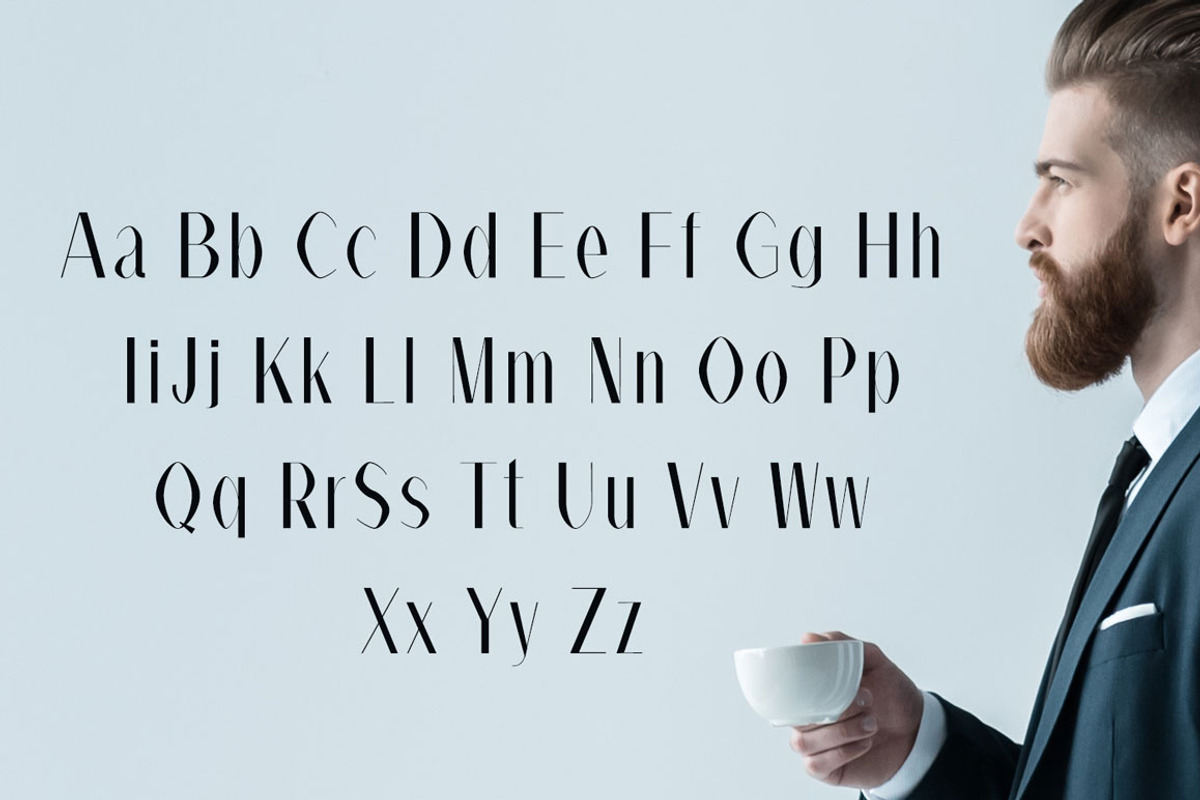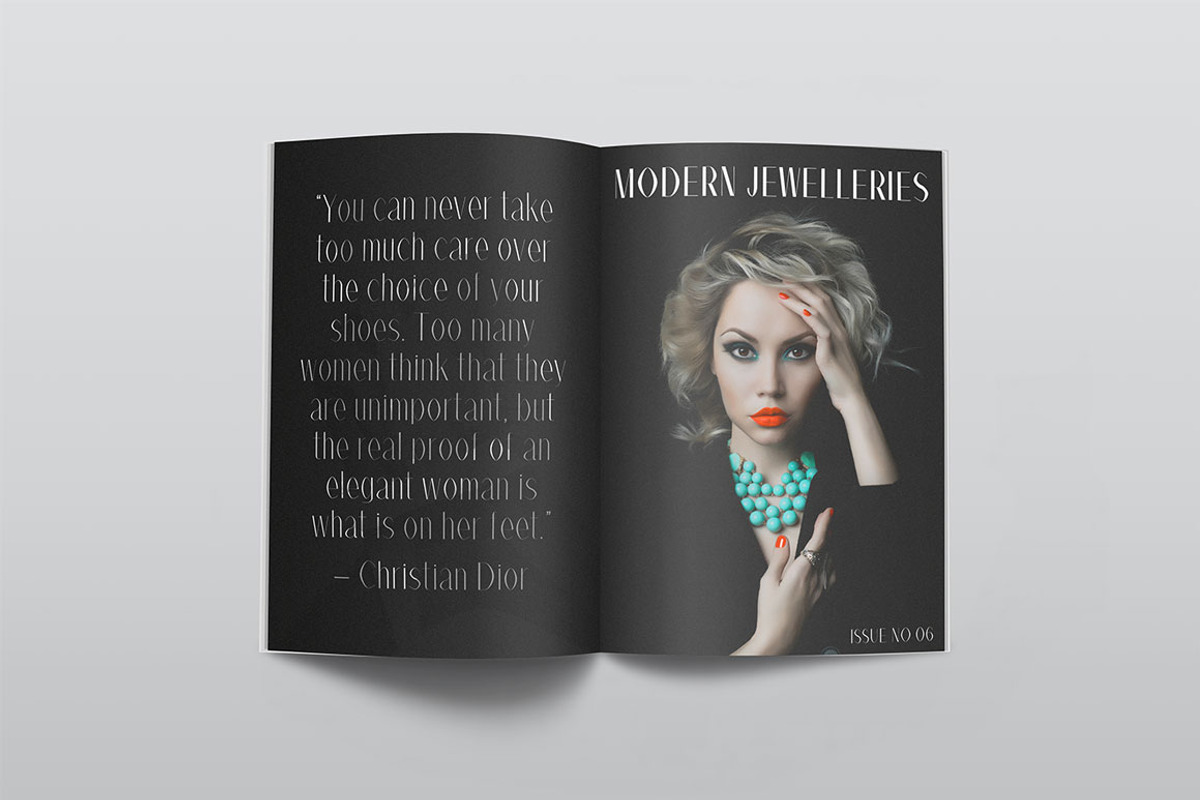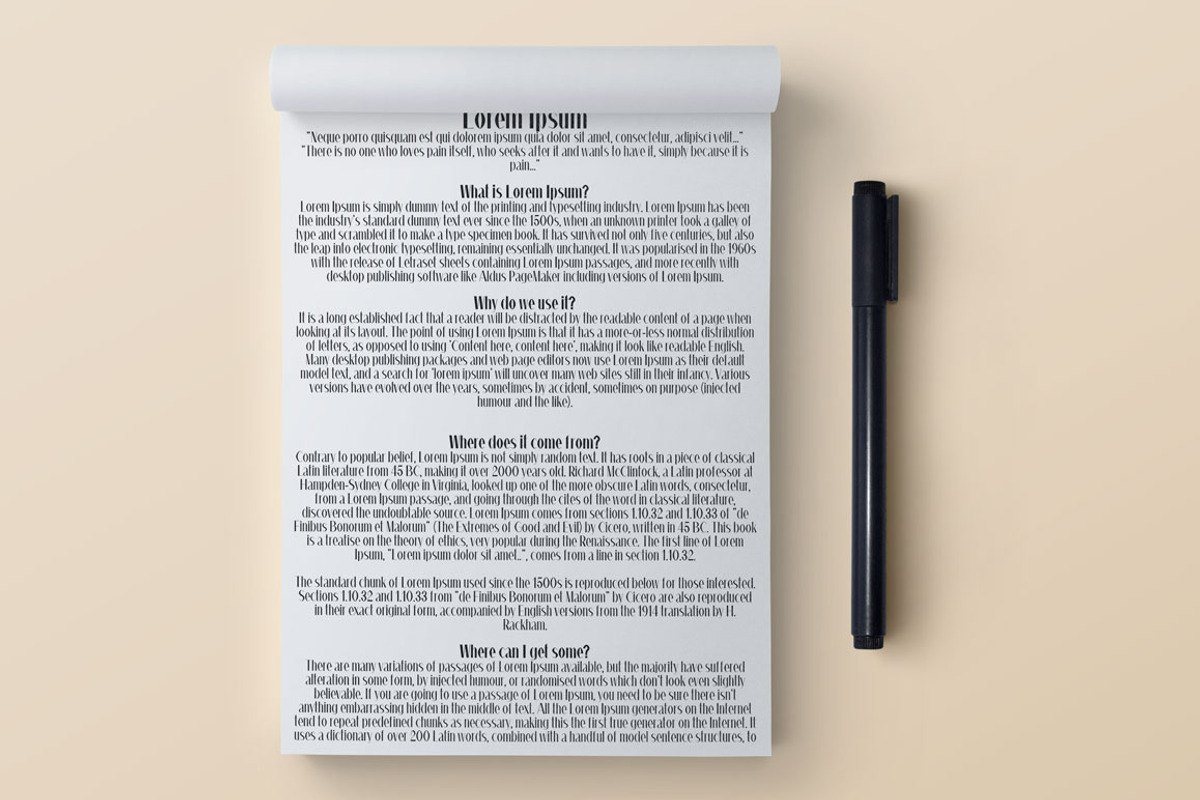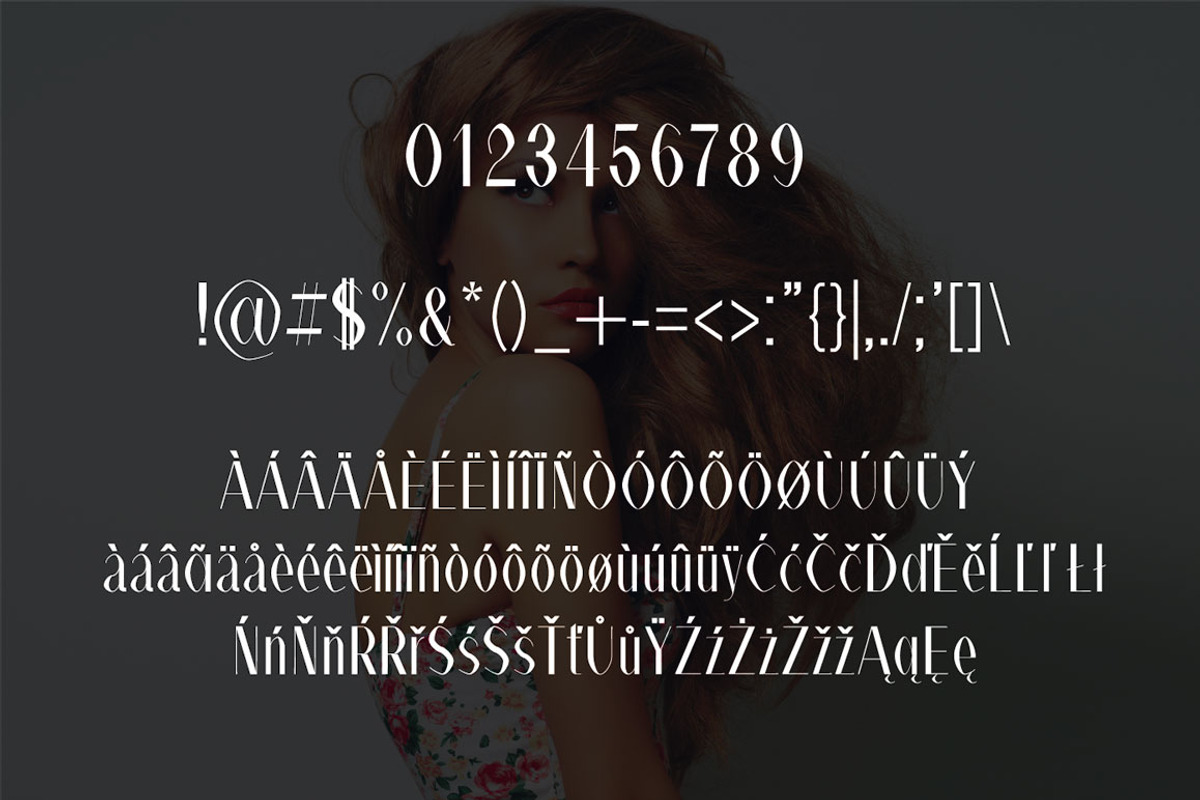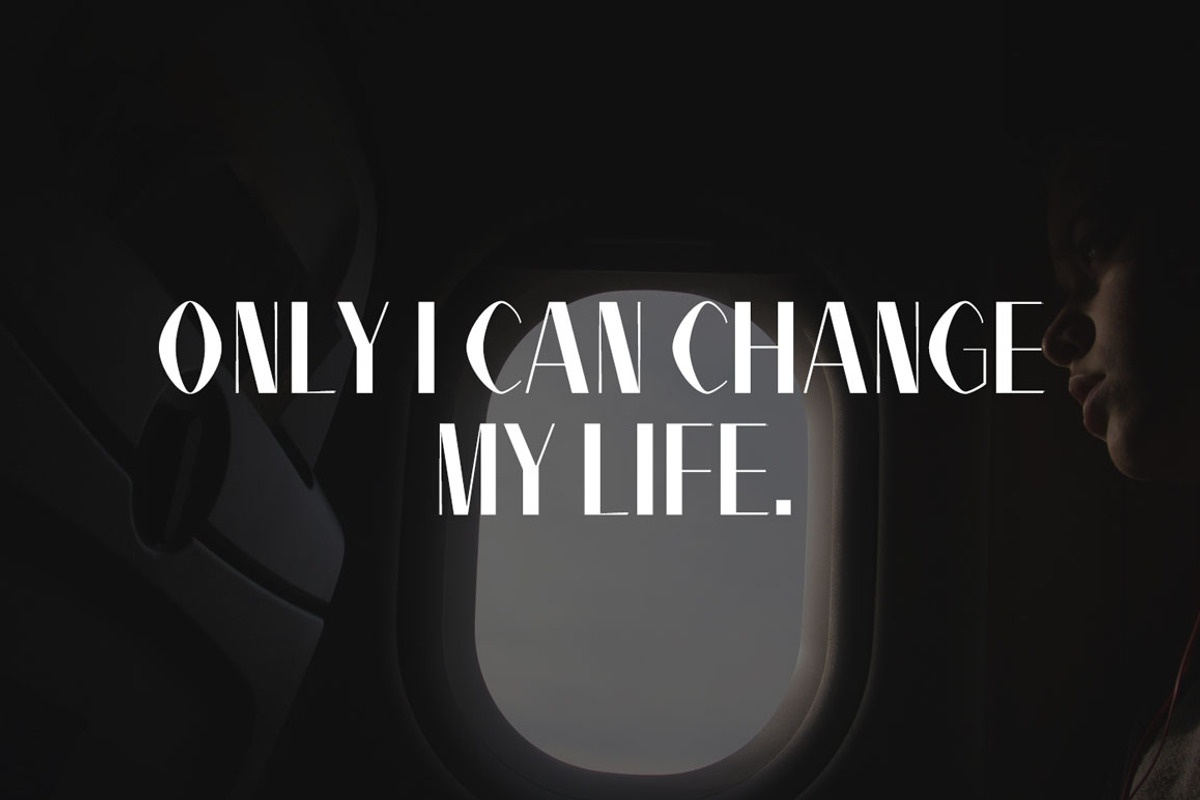
Alex Sans Serif Font Family
Alex Sans Serif Font Family by Creativetacos is a font selected for branding, posters, packaging, typography.
- Bold, Regular, Thin and Light & Italics Weights
Why Alex Sans Serif Font Family is worth a look
Alex Sans Serif Font Family by Creativetacos fits naturally into Branding, posters, packaging, typography.